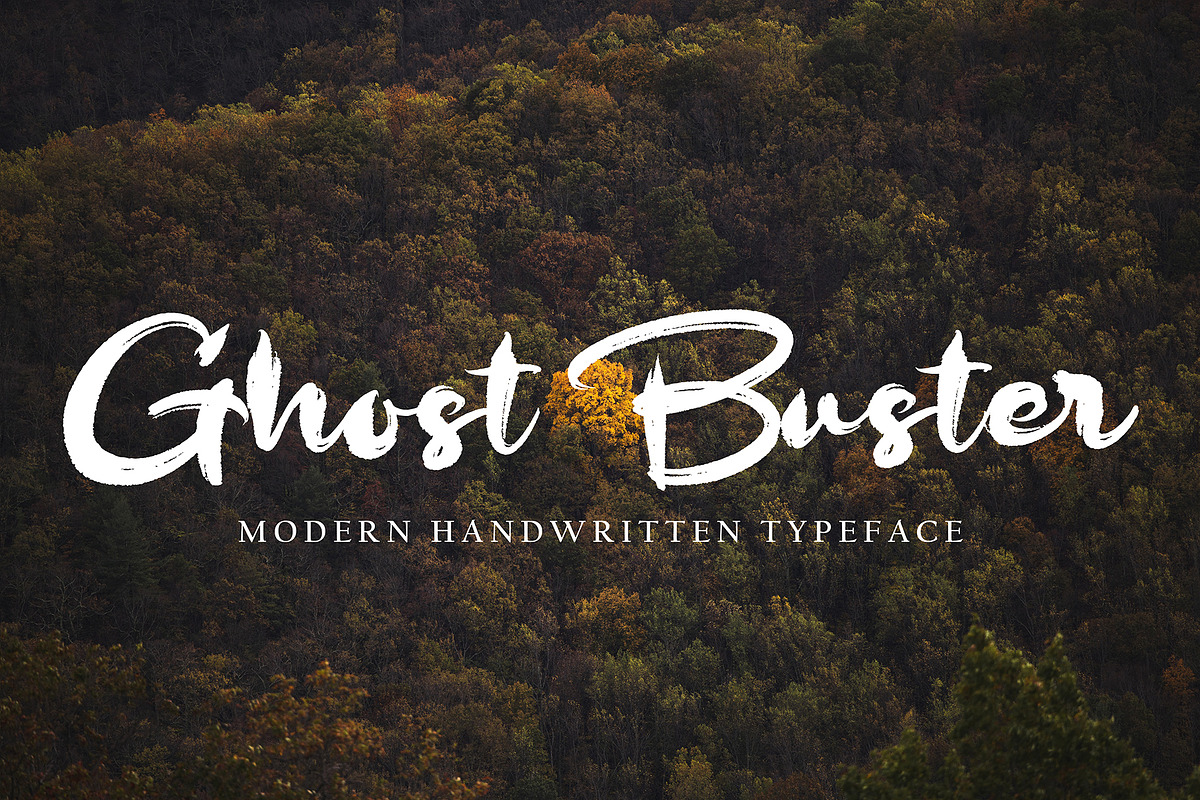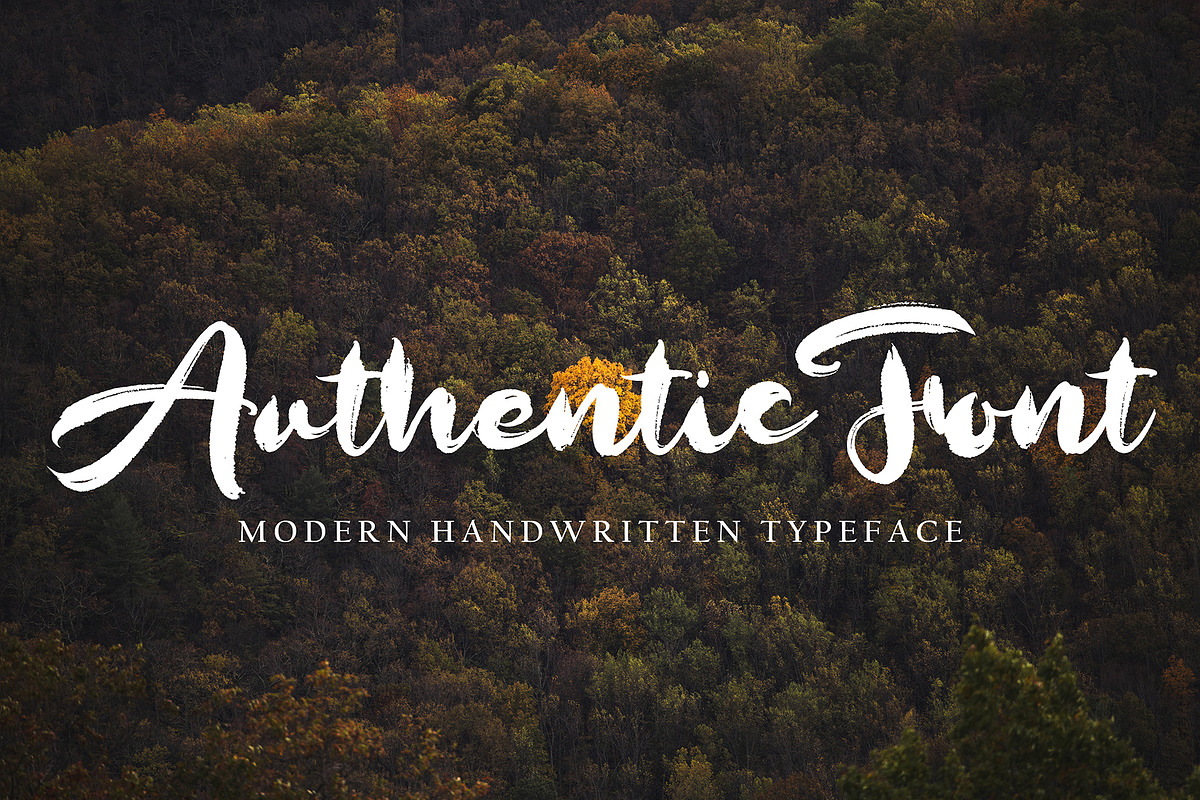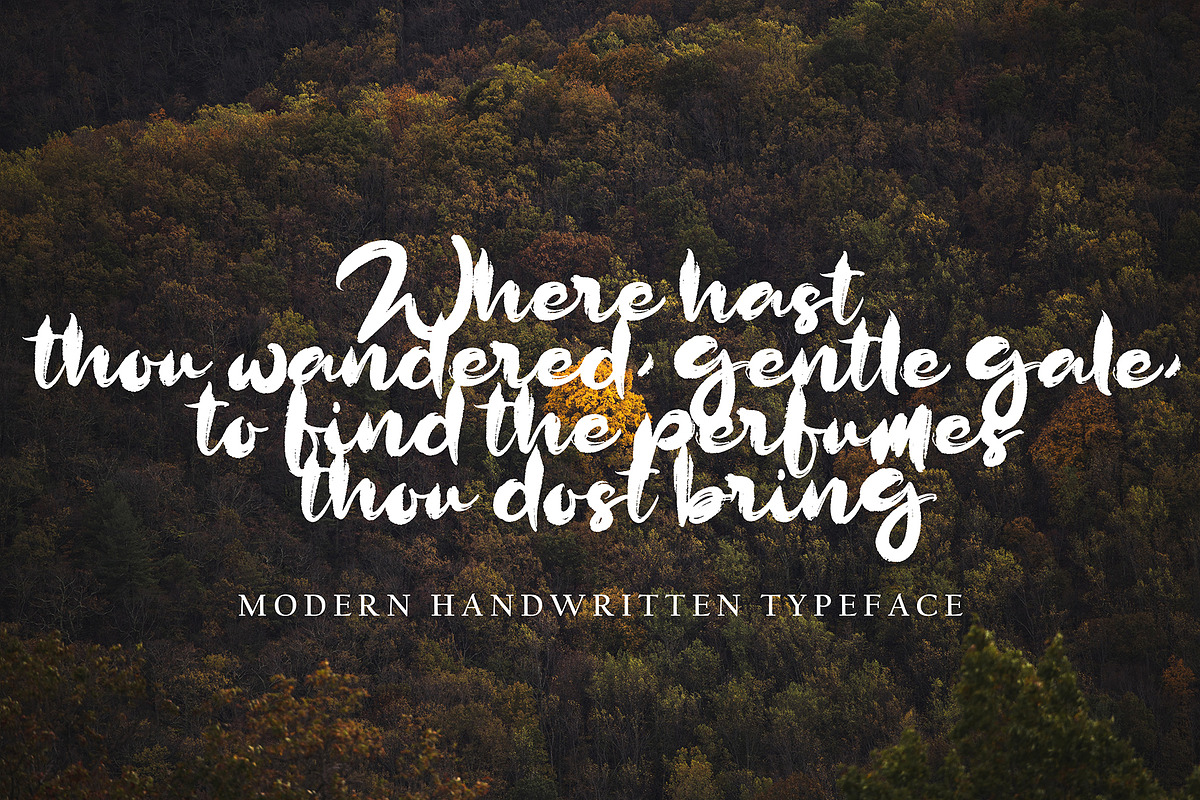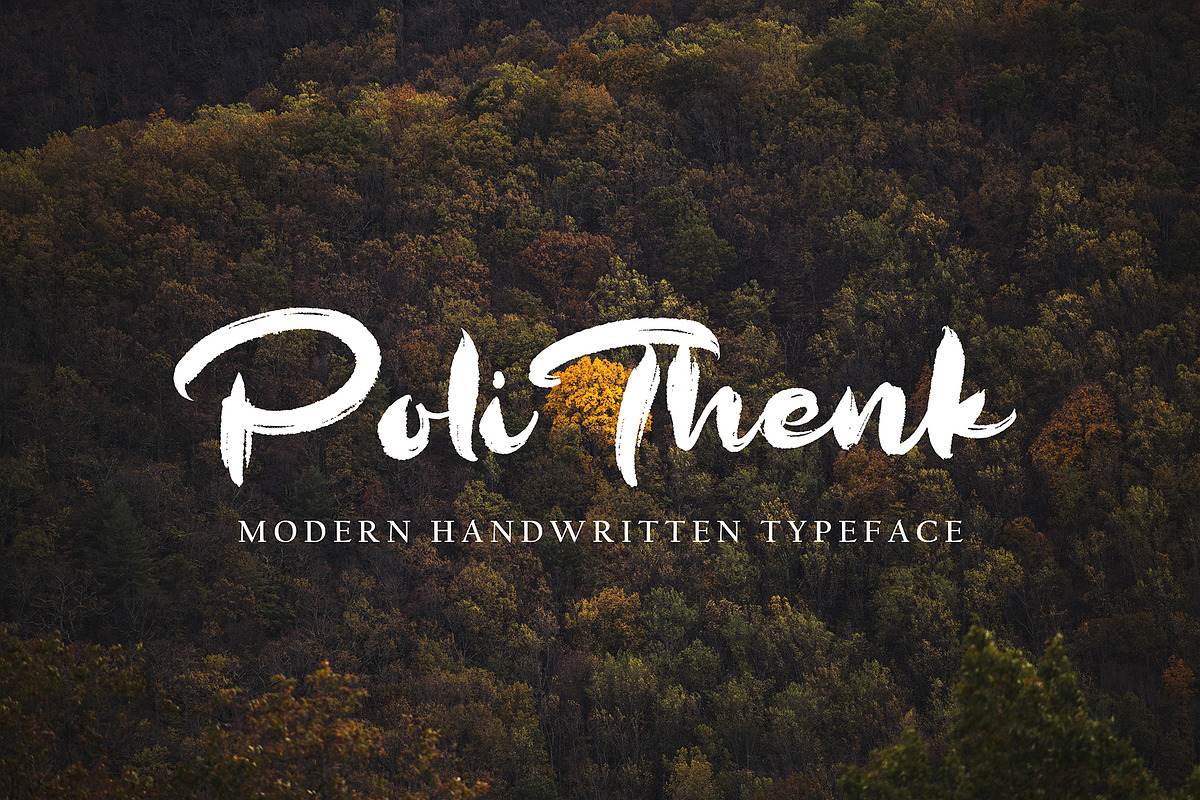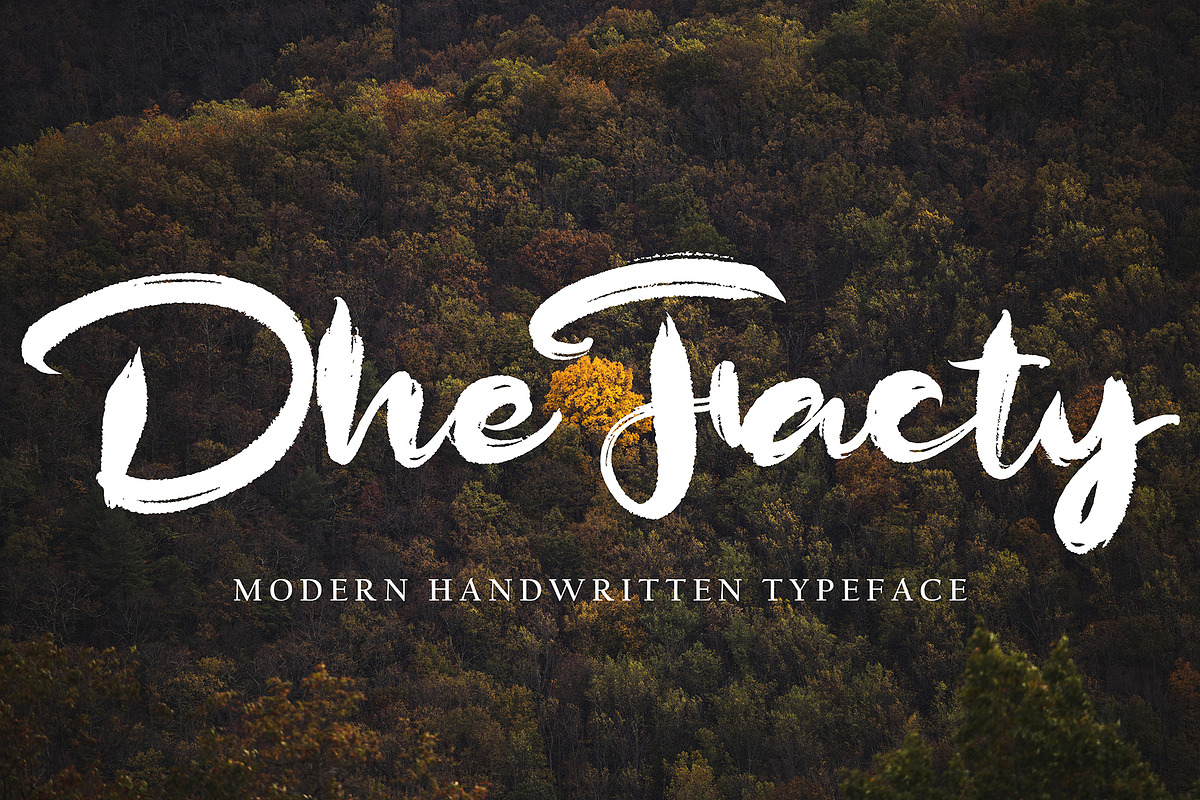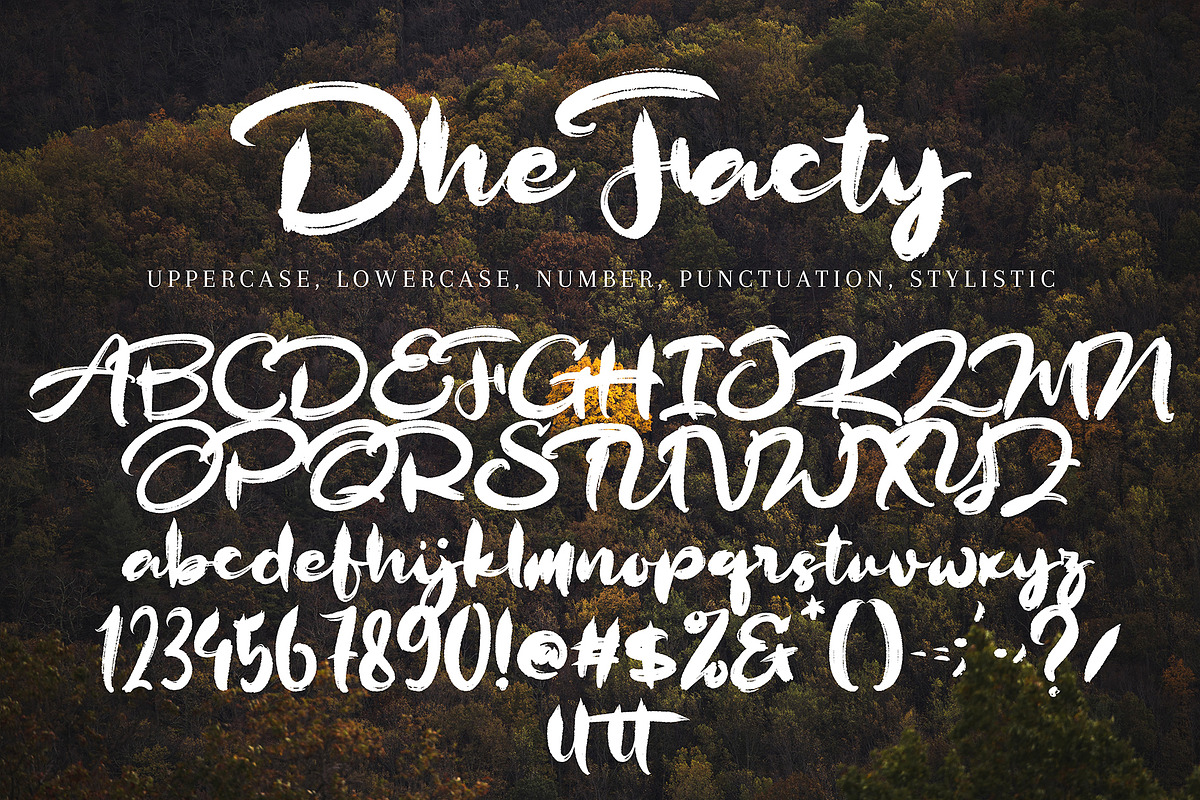
Dhe Facty
Dhe Facty with new style, this font will perfect for many different project ex: quotes, logo, blog header, poster, banding, letter, invitation, stationery, etc...